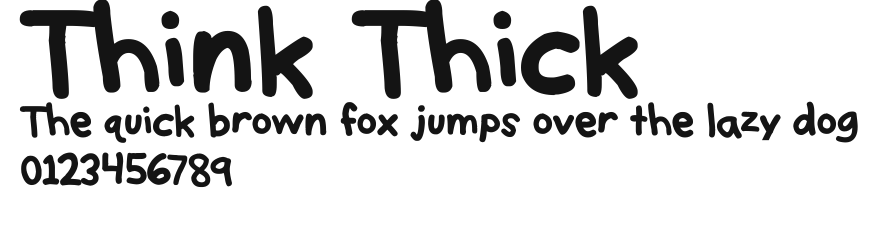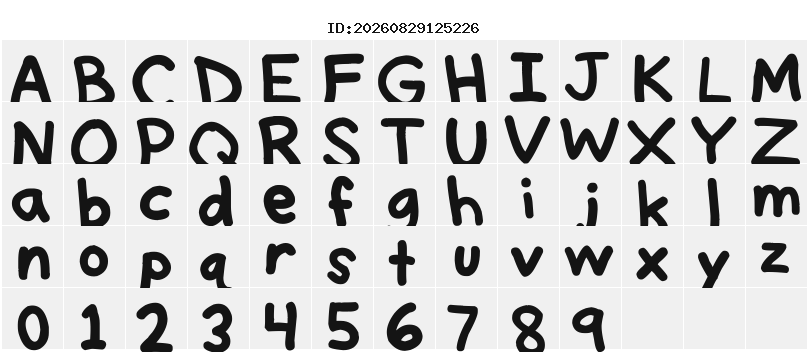
• Font Name: Think Thick
• Full Font Name: Think Thick
• Version: Version 1.00 October 30, 2012, initial release
• PostScript Name: ThinkThick
About Think Thick.ttf
Think Thick.ttf is a modern, elegant sans-serif font designed for ultimate readability and visual harmony. Perfect for branding, headlines, web design, and print materials.